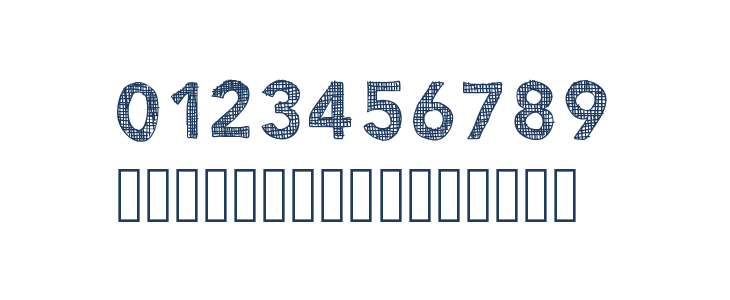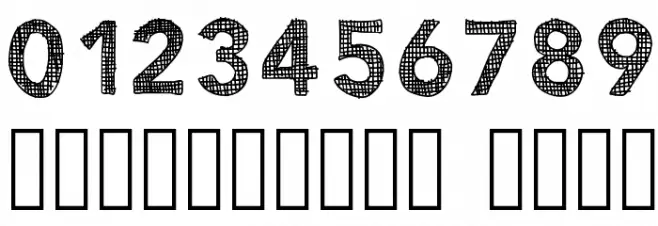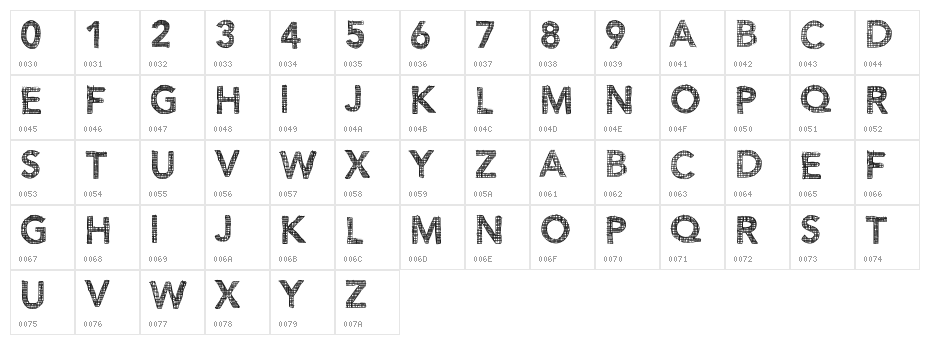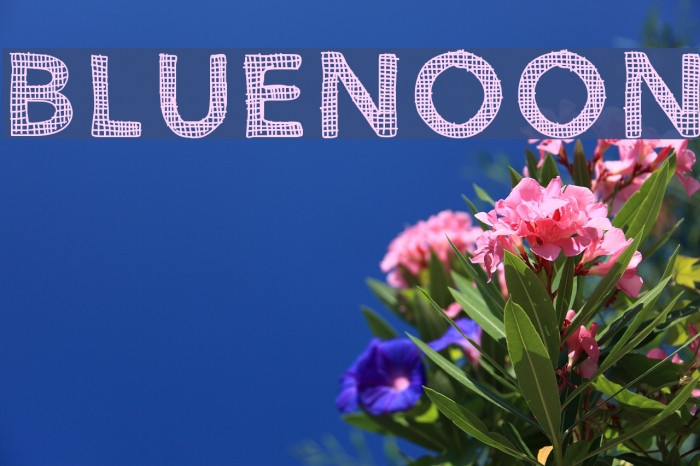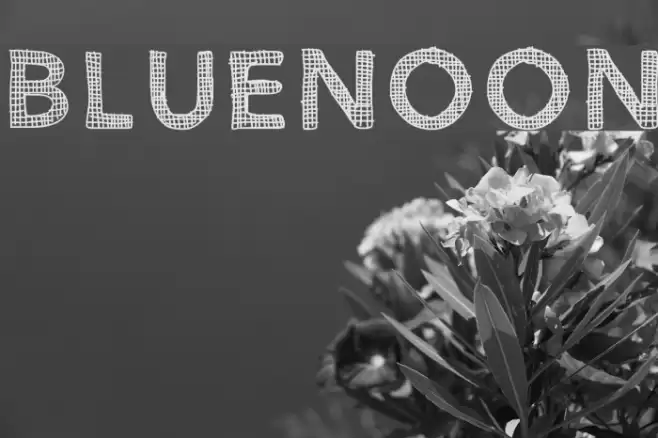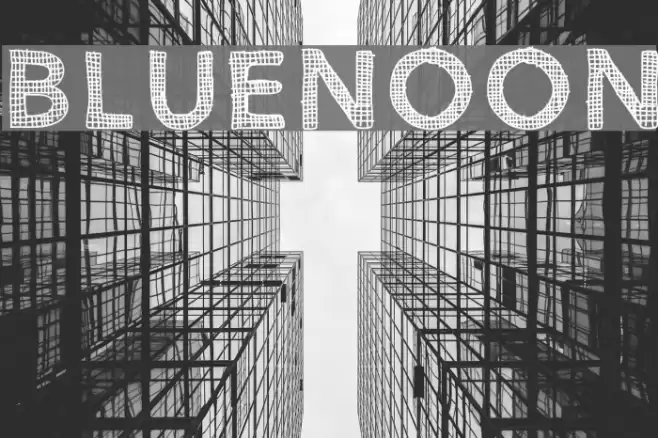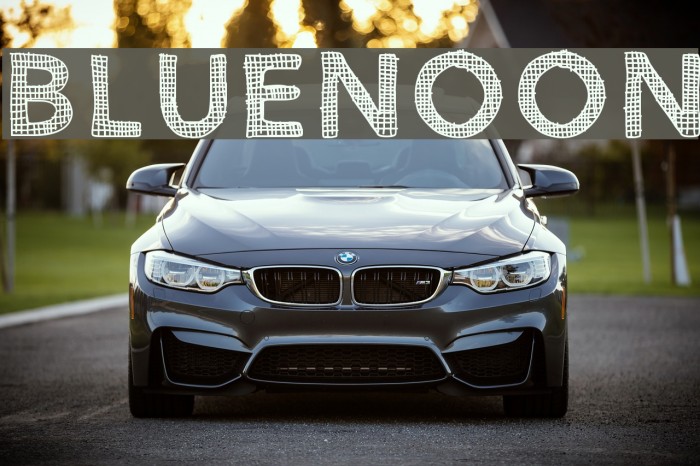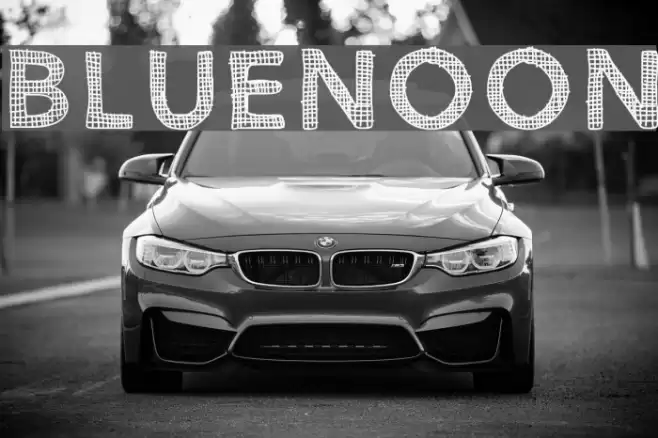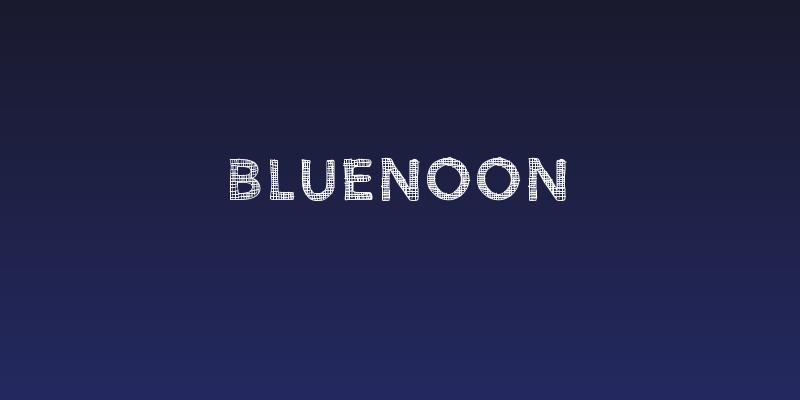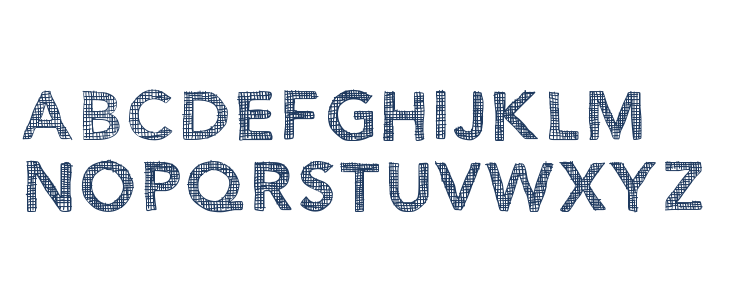
BlueNoon Font
BlueNoon Description
This font features a unique, textured design with a grid-like pattern filling each character. The uppercase and lowercase letters maintain a consistent style, with bold, rounded edges that give a playful yet structured appearance. The numerals and special characters follow the same design principles, ensuring a cohesive look across all elements. The font's distinctive texture makes it stand out, adding a layer of visual interest that can enhance creative projects. Its boldness and decorative style make it suitable for eye-catching designs.
BLUENOON UPPERCASE
BLUENOON LOWERCASE
BLUENOON OTHER CHARS
| Proposed Projects | This font is perfect for projects that require a playful and artistic touch, such as posters, invitations, and branding materials. It can also be used in digital media to create standout headlines or titles. |